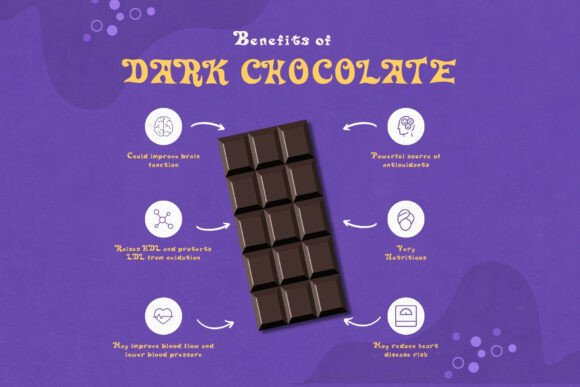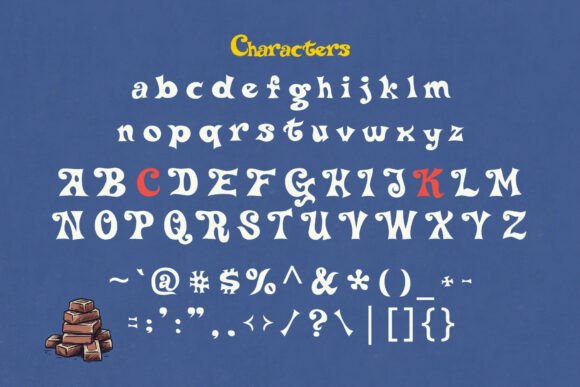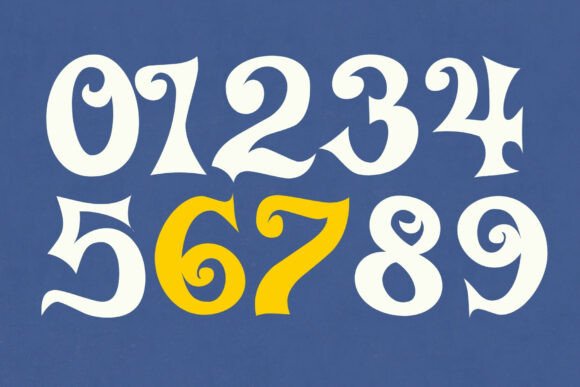
Introduction to Caramel Kingdom Font
Caramel Kingdom is a whimsical and lively serif display font that infuses every design with a sense of magic, charm, and fun .
Its playful yet polished letterforms are perfect for candy, chocolate, and sweets branding , as well as packaging, promotional materials , and anything that needs a touch of delicious personality More than just a font, Caramel Kingdom tells a story β€”its distinctive shapes spark curiosity and joy, instantly capturing attention.
Key Features of Caramel Kingdom Font